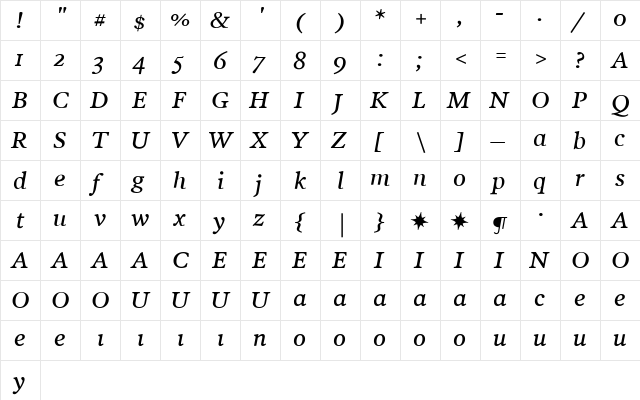
PoynterText-ItalicThree Regular
| Foundry | The Font Bureau, Inc |
PoynterText-ItalicThree takes a measured approach to typography — its balanced proportions and neutral character make it a reliable workhorse for both digital and print work. Its italic angle brings a sense of urgency and motion to the letterforms.
Pro Tip: Try PoynterText-ItalicThree for annotation and caption copy alongside an upright companion — the contrast in angle creates a dynamic but ordered typographic system.